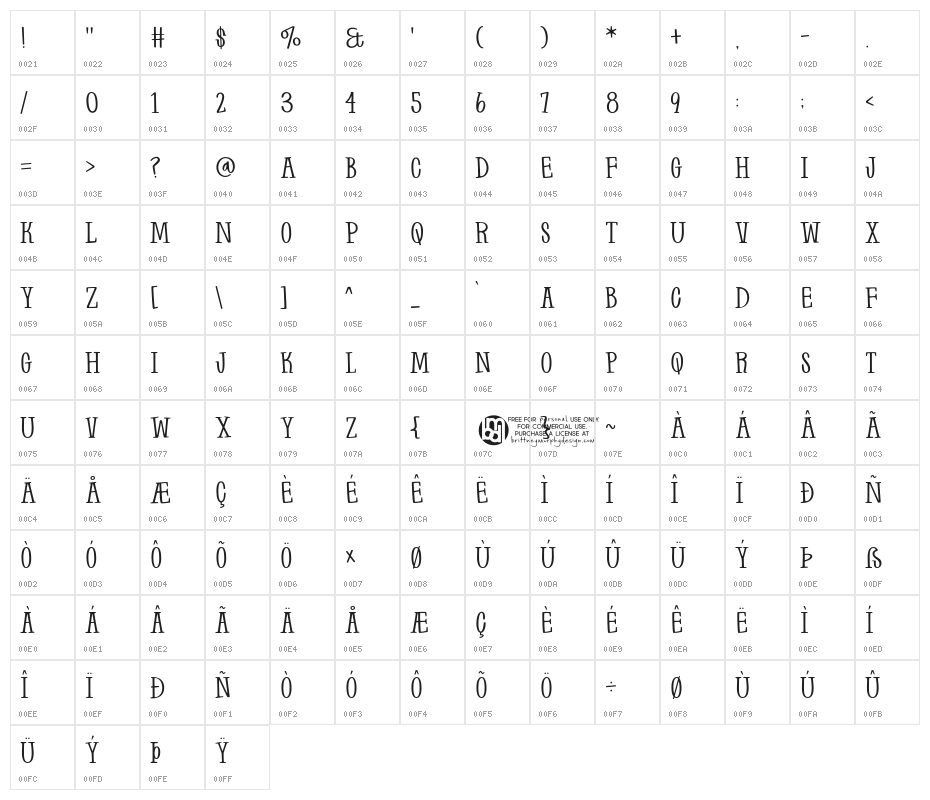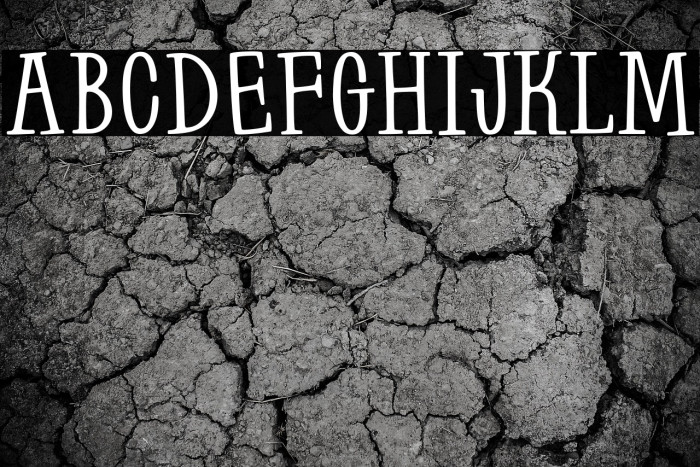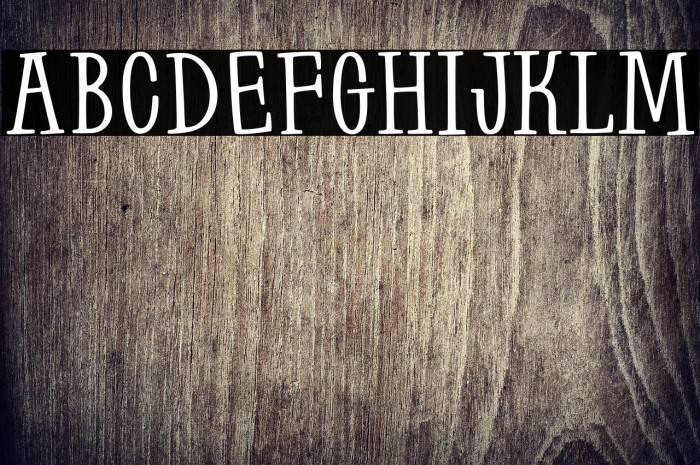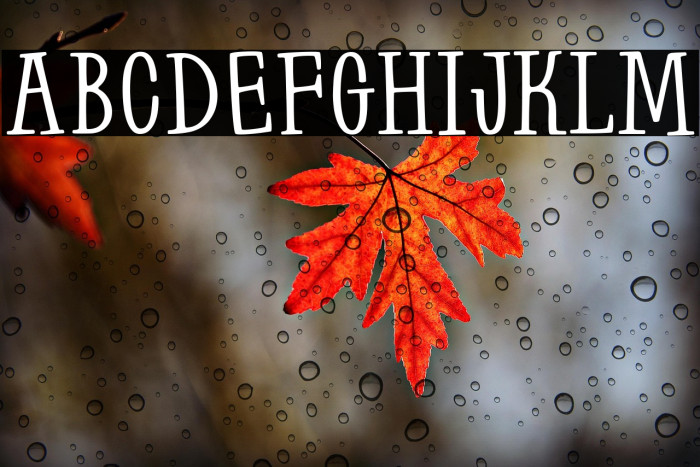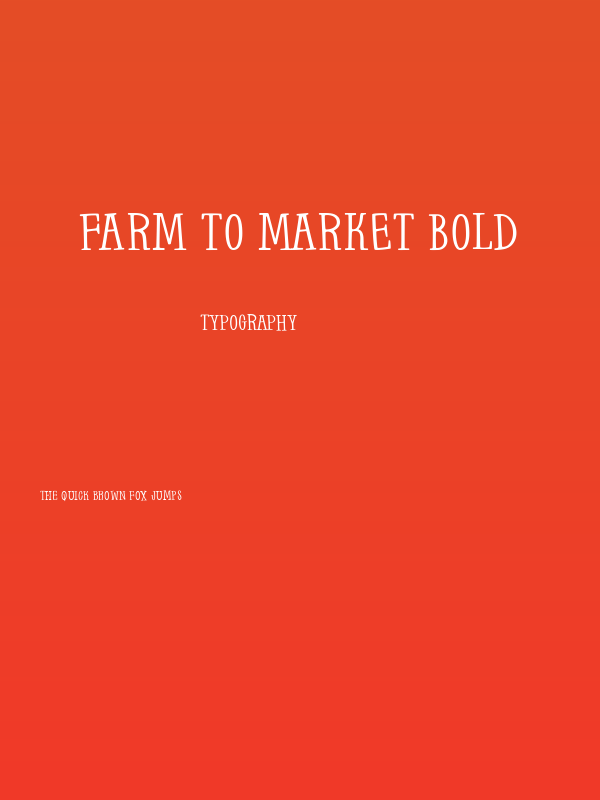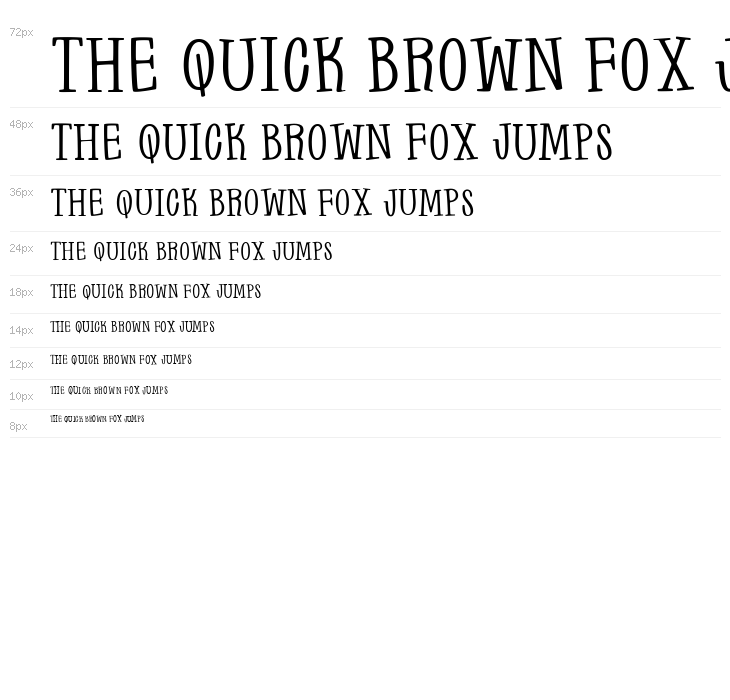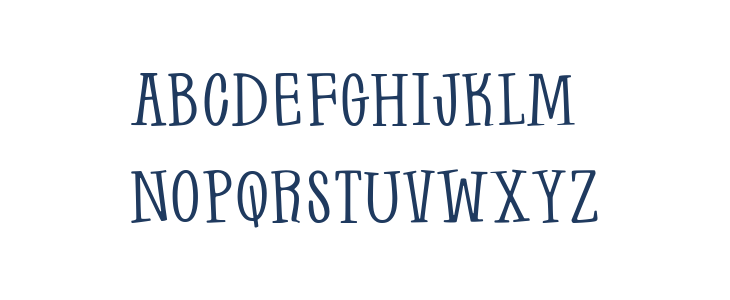
Farm to Market Bold Font
Farm to Market Bold Description
This font features a playful and slightly whimsical style with a hand-drawn appearance. The letters are bold and have a distinct, slightly irregular shape that adds character and charm. The uppercase and lowercase letters maintain a consistent style, with a slight slant that gives them a dynamic feel. The numbers and special characters are designed to match the overall aesthetic, making the font versatile for various uses. The strokes are thick and uniform, providing a strong presence on the page.
| Proposed Projects | Ideal for children's books, playful branding, greeting cards, and creative posters. |